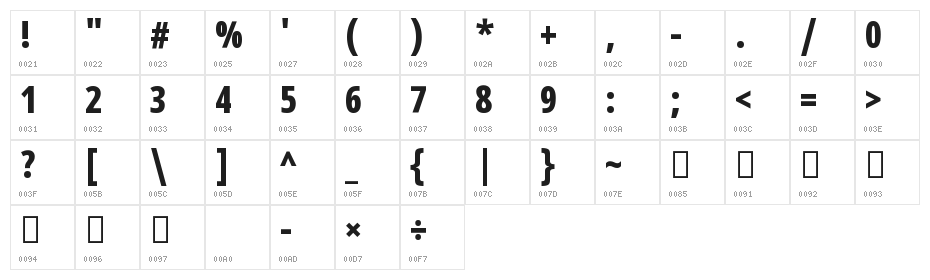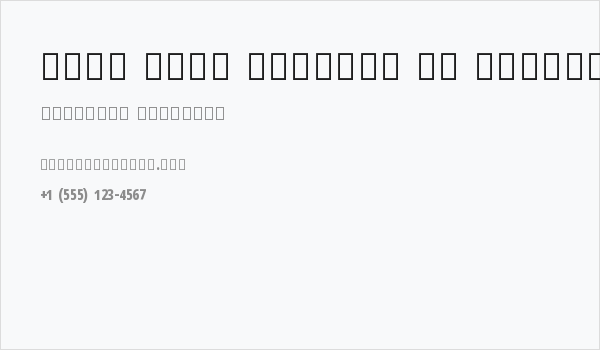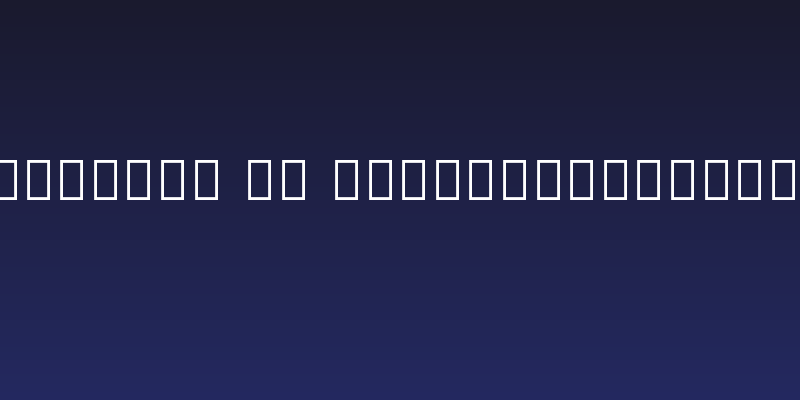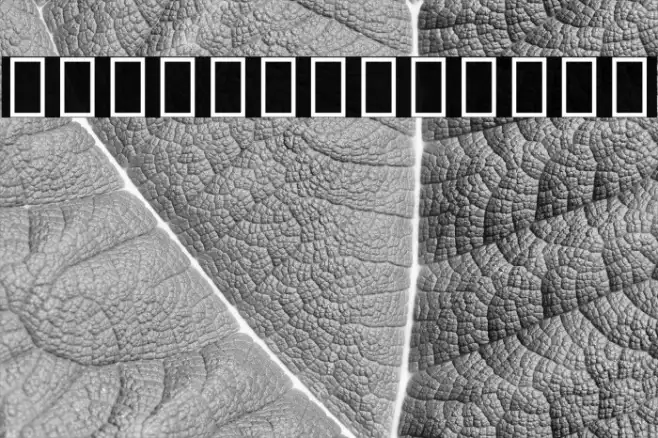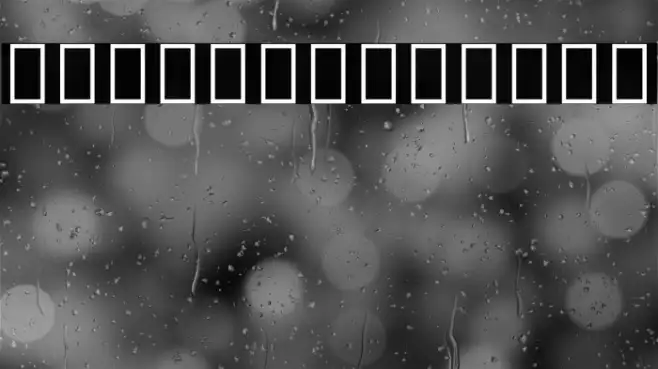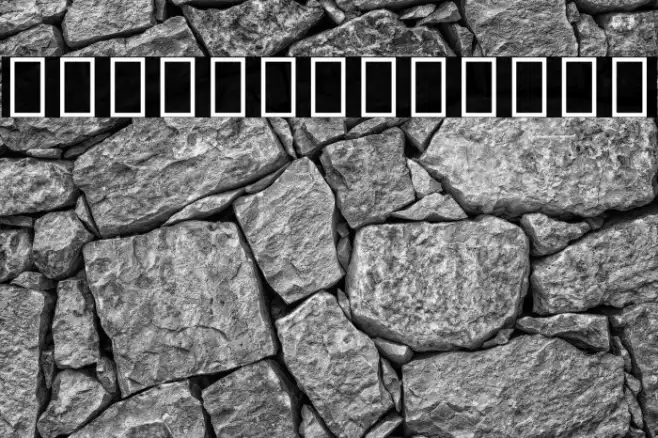
Noto Sans Sinhala UI ExtraCondensed ExtraBold Font
Noto Sans Sinhala UI ExtraCondensed ExtraBold Description
This font is characterized by its extra bold weight and extra condensed width, making it highly impactful and attention-grabbing. The numerals and special characters are designed with a strong presence, featuring thick strokes and minimal contrast, which enhances readability and visual impact. The style is modern and clean, suitable for digital interfaces where clarity and boldness are required. The overall appearance is straightforward and functional, with a focus on delivering information effectively.
| Use Case | Headlines, Digital Interfaces, Posters |
| Proposed Projects | Ideal for digital interfaces, headlines, posters, and any project requiring strong visual impact. |